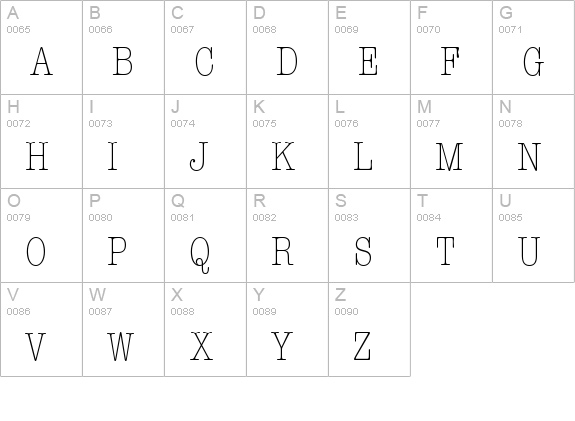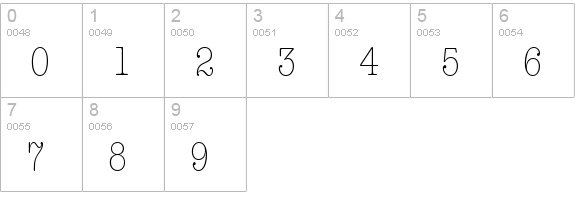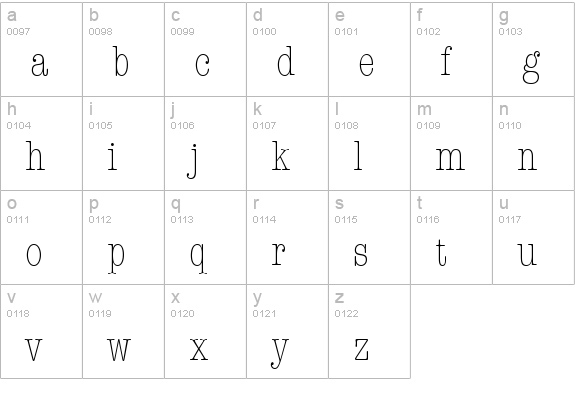
Keyboard Light Condensed SSi Light Condensed Font Details
Keyboard Light Condensed SSi Light Condensed is a refined, elegant, condensed-width variant in the Keyboard typeface family \xE2\x80\x94 well suited to elegant body text, refined sub-headings, and luxury branding.